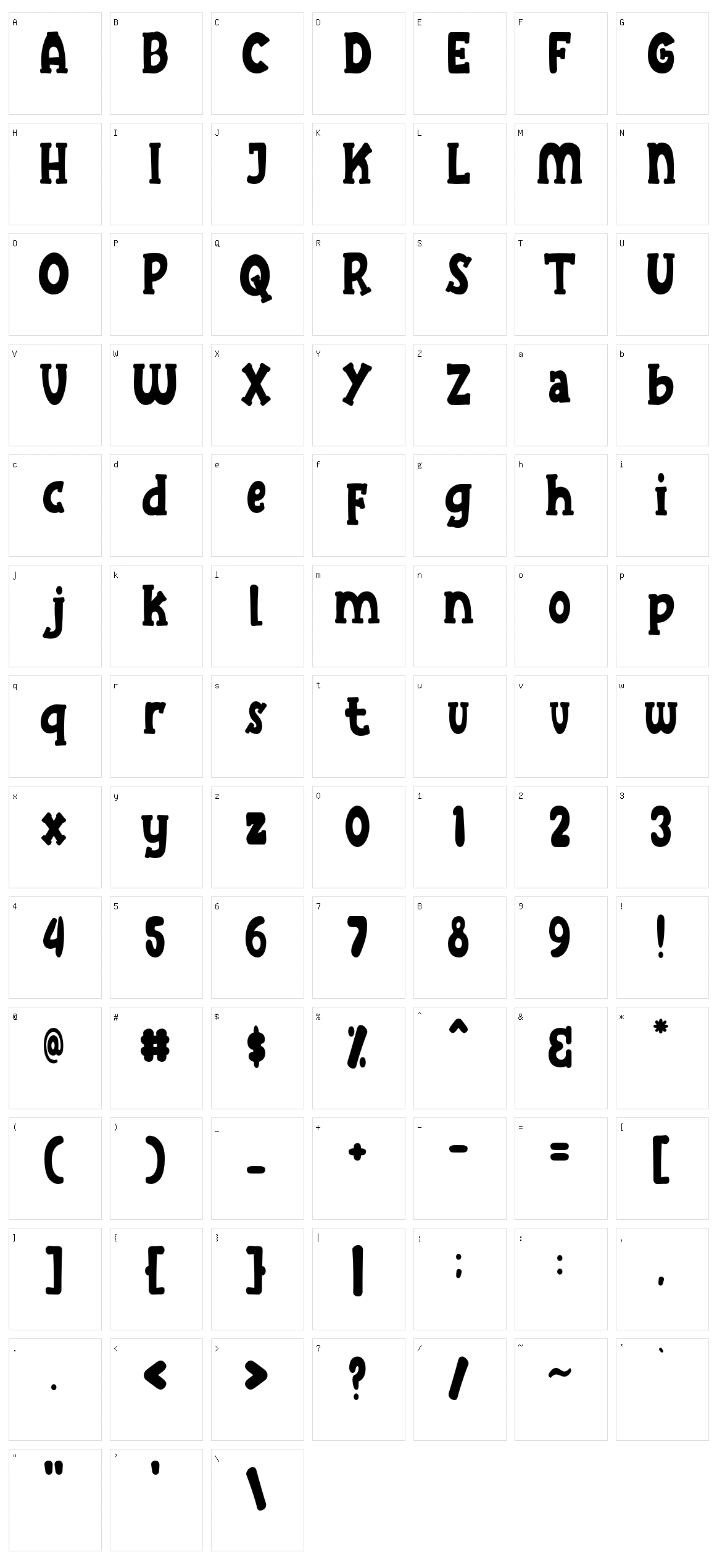
The free font Cheesel is carefully designed by Display Studio, showcasing a thoughtful balance of creativity and usability and falls under the Cartoon font style. When you download the ZIP file, it contains only 81.44 KB of font files, making it lightweight and quick to download. Please review the license details below to understand permitted usage and distribution rights. If license information is not available, we recommend using this font for personal projects only or contacting the author directly for commercial usage permissions.